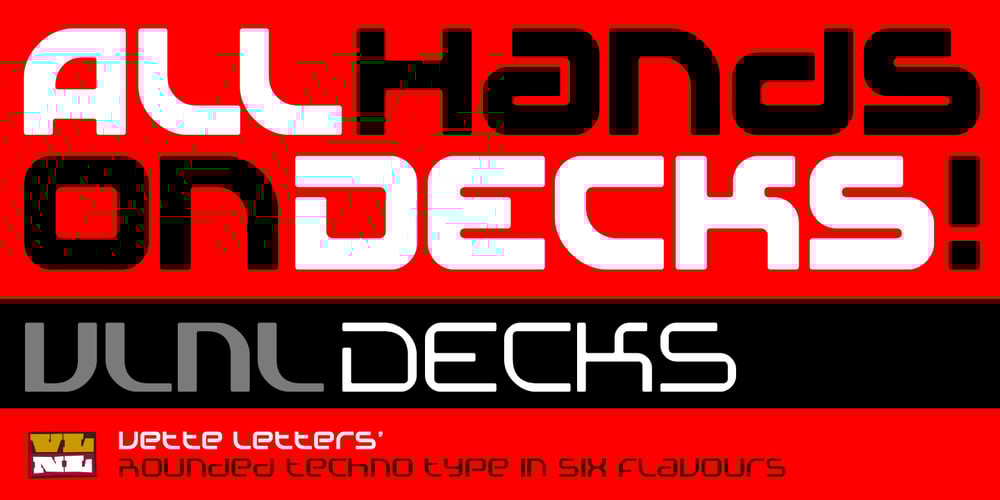
VLNL Decks Font Family was designed by Donald Beekman and published by VetteLetters. VLNL Decks contains 6 styles and family package options. Donald DBXL Beekman lives on a ship in Amsterdam’s waters (well, the Amstel river, actually). Living on the water inspired him to design this ‘cruise ship’ typeface VLNL Decks. Available in several variations, it’s a fabulous cocktail of freshly caught fish typography. Decks is recommended for seafood restaurants, speed boats as well as slick city boys wearing overly expensive sunglasses or Ibiza sunset parties. Decks is the tiger prawn amidst sea foods. VLNL Decks has a distinct modern techno look but the rounded corners give it a warm and human feel. It is available in 3 monolinear weights (Light, Medium, Bold) and 3 weights with contrast between horizontals and verticals (Different Light, Different Medium, Different Bold).